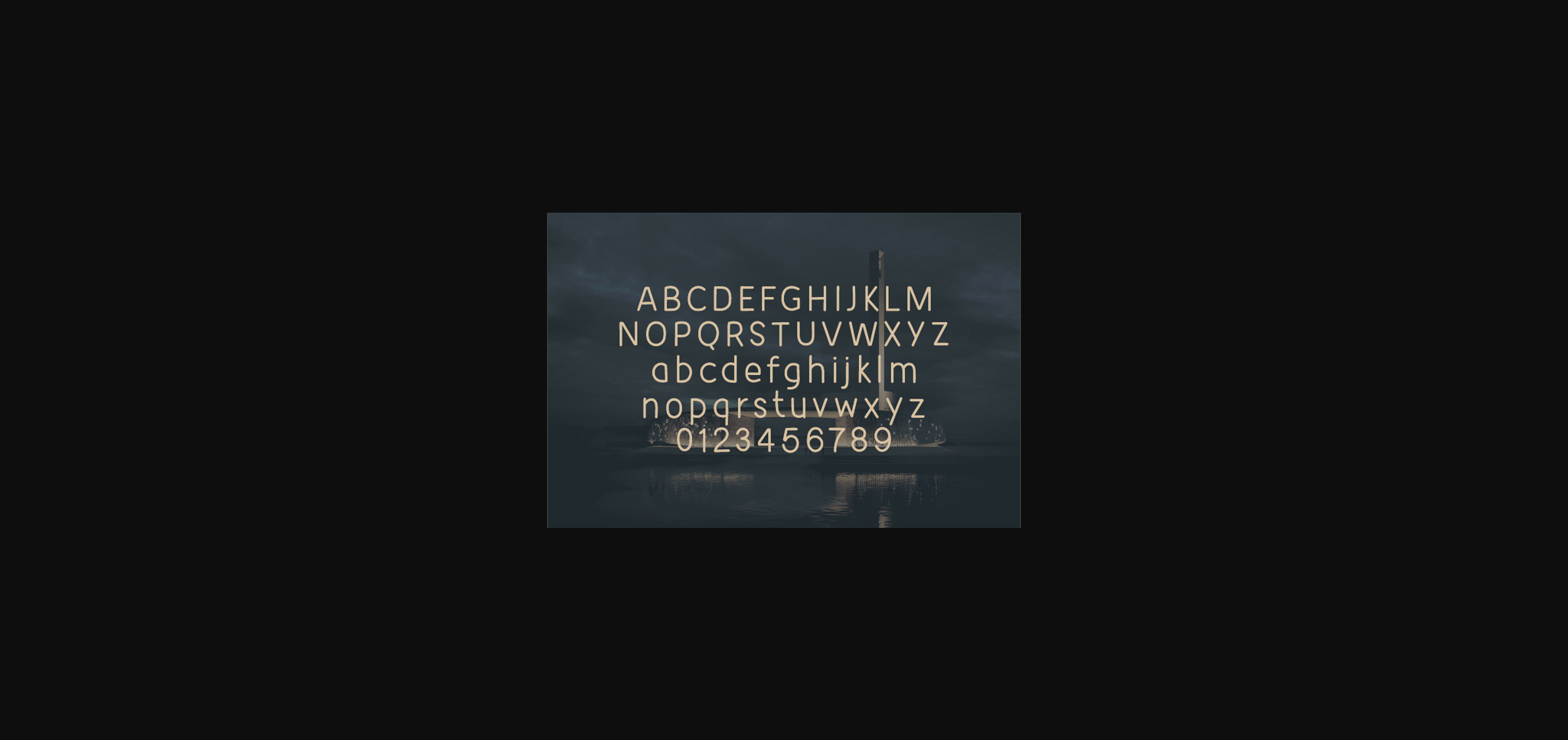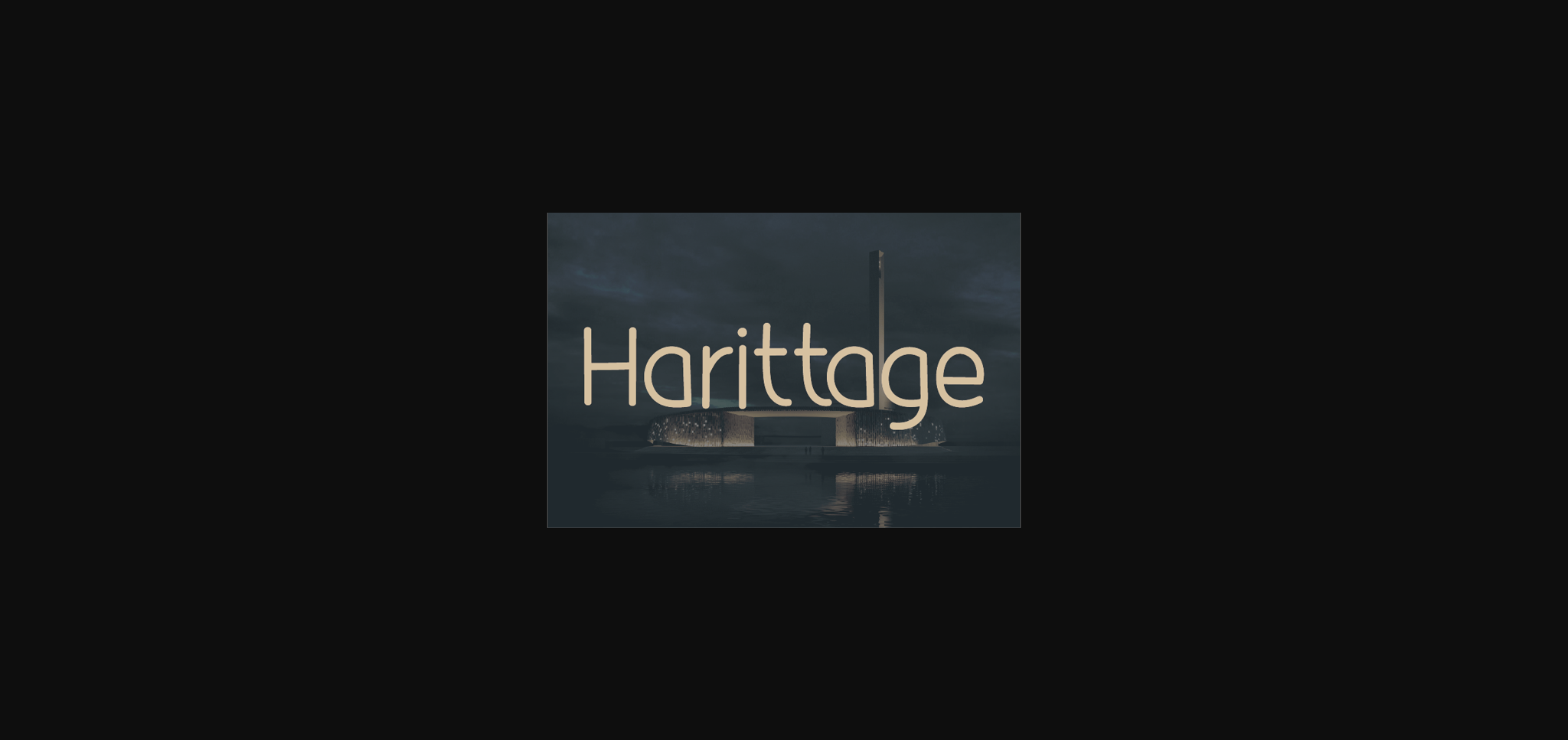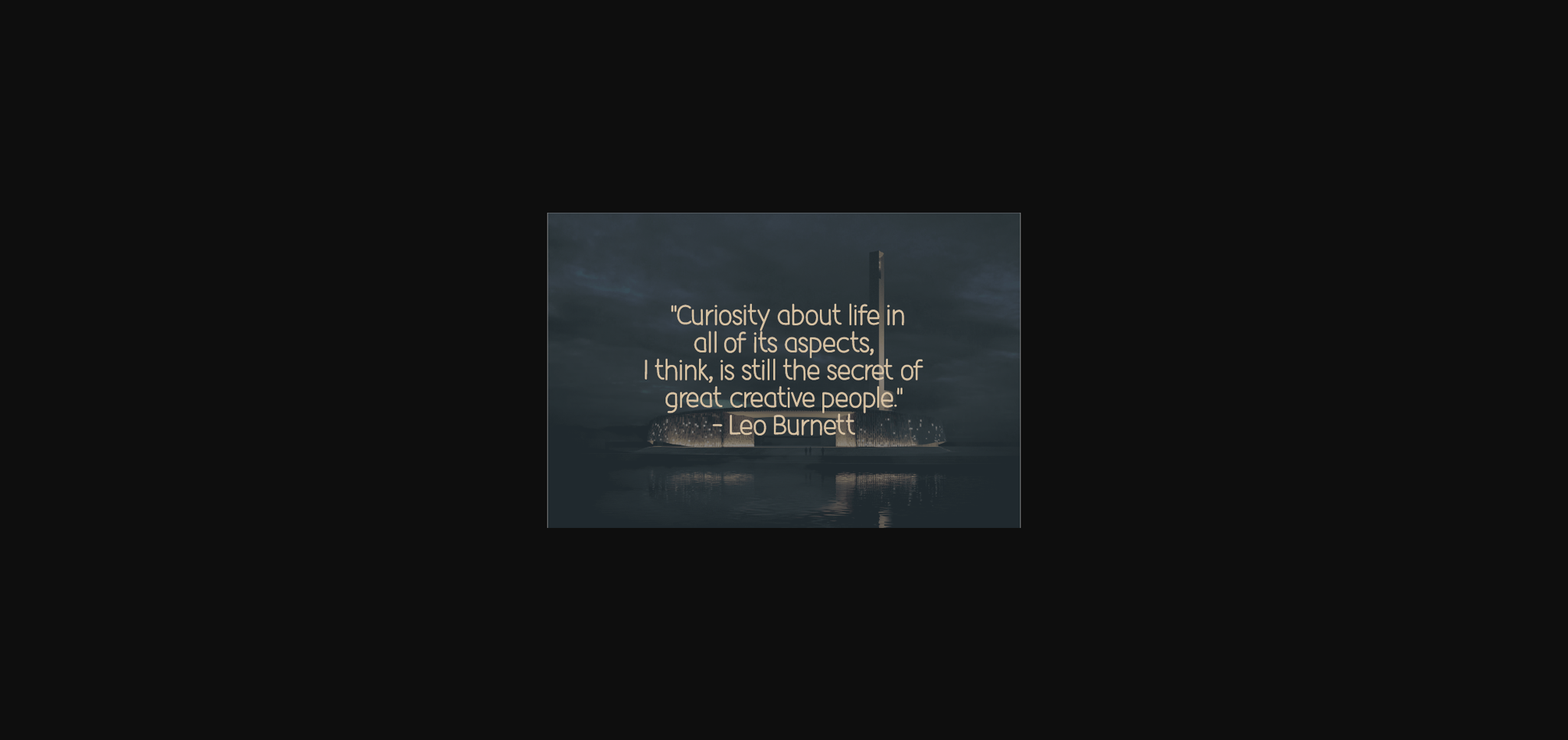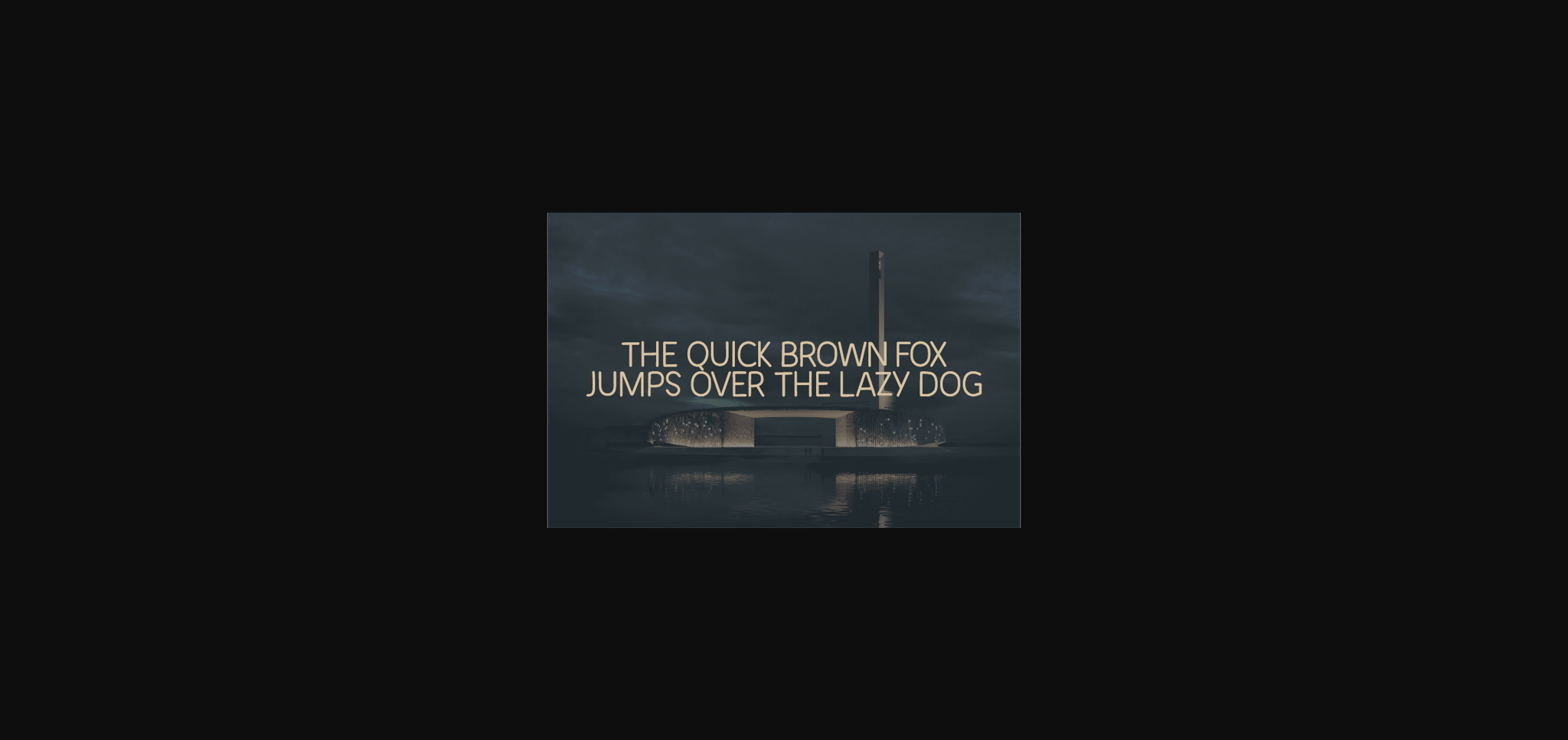
HomeSans Serif FontsHarittage Font Sans Serif Fonts Harittage Font FacebookXPinterestWhatsApp 1 of 6 ... Harittage Font Poster 2... Harittage Font Poster 3... Harittage Font Poster 4... Harittage Font Poster 5... Harittage Font Poster 6... About Harittage Font Harittage is a casual and neat sans serif font that impresses through its natural and elegant style. This typeface will enhance your craft with little effort, making your product stand out from the competition. DOWNLOAD NOW People also explored Sunwaves Font Holiday Christmas Font Pamson Font Aliquest Script Font Soulmate Font Homemade Brownies Font Heliym Font Gabriella Font Lemontea Font 326 0 TagsHarittage Font Previous articleManhattan FontNext articleApplemoon Font LEAVE A REPLY Cancel reply Comment: Please enter your comment! Name:* Please enter your name here Email:* You have entered an incorrect email address! Please enter your email address here Website: Save my name, email, and website in this browser for the next time I comment. Personal Use Free Screengem Personal Use Free Read more about this font Built Tilting Personal Use Free Read more about this font Axaxax Bold Personal Use Free Read more about this font Foo Personal Use Free Read more about this font BLOG How to Install and Use Fonts on Windows, macOS, and Web Projects How to Install and Use Fonts on Windows, macOS, and Web Projects Fonts are a crucial part of design and branding. Whether you’re designing a... Using Fonts in Digital Marketing: Tips to Strengthen Your Brand Identity Modern Sans-Serif Fonts That Brands Love in 2025 Transform Your Website: Elevate Your Typography with 7 Best Web Font Generators